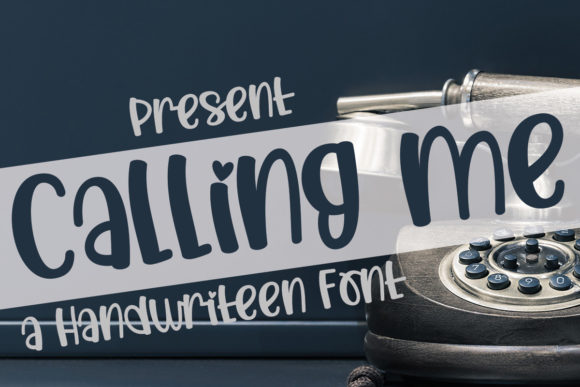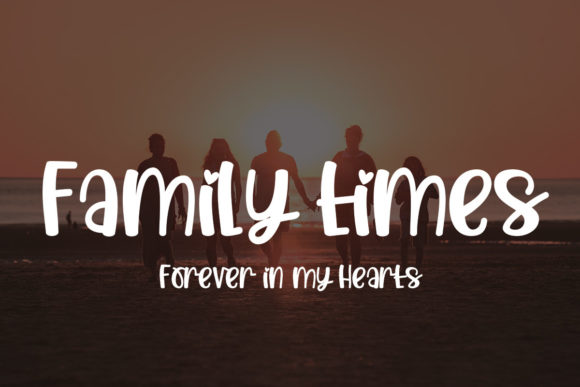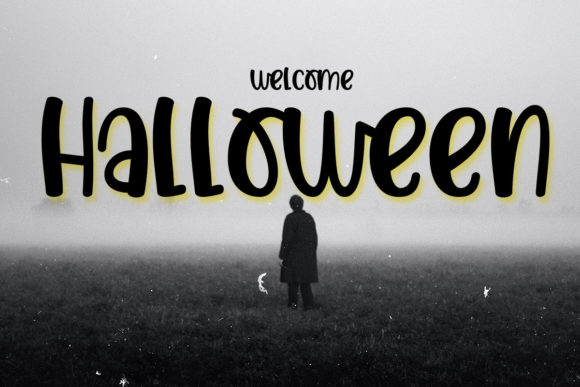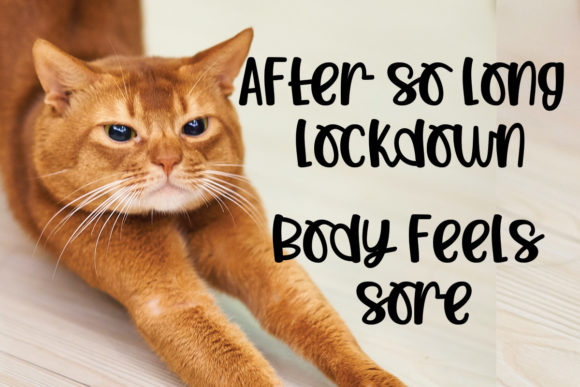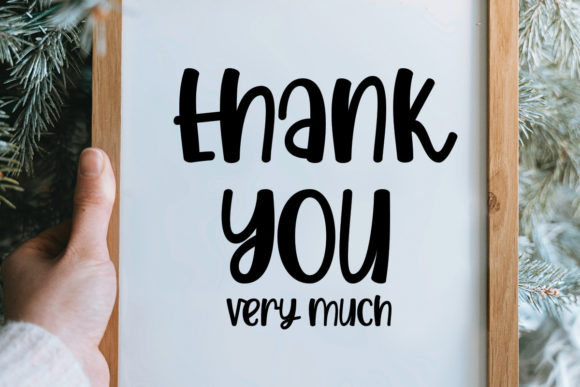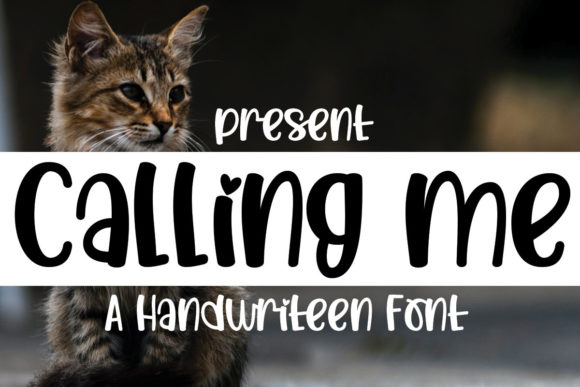
Discover the Charm of Calling Me Font: Elevate Your Designs with a Cool, Quirky, and Friendly Display Font
Are you on the hunt for a font that adds a dash of personality to your designs? Look no further than the Calling Me font, a cool, quirky, and friendly display font that’s sure to capture the attention of your audience. This delightful font is not only aesthetically pleasing but also highly functional, making it an excellent addition to your typography collection.
The Unique Appeal of Calling Me Font
Calling Me font stands out from the crowd with its unique blend of coolness, quirkiness, and friendliness. Its distinctive style is perfect for designers and crafters looking to infuse their projects with a bit of whimsy and charm. Whether you’re working on a branding project, crafting a social media graphic, or designing an invitation, Calling Me font is sure to bring a smile to your face and make your work shine.
One of the key features that sets Calling Me font apart is its PUA (Private Use Area) encoding. This means that you can easily access all of the font’s glyphs and swashes, allowing you to add intricate details and flourishes to your designs with just a few clicks. The PUA encoding ensures that you have complete creative control over your typography, making it simple to customize your text and make it truly unique.
With Calling Me font, the creative possibilities are endless. You can use it to:
- Create eye-catching headlines and titles that grab attention
- Add a touch of whimsy to your social media graphics and posts
- Design beautiful invitations and party decorations
- Develop a cohesive brand identity with a unique and recognizable typography style
- Craft compelling packaging designs that stand out on store shelves
Why Choose Calling Me Font?
So, what makes Calling Me font an excellent choice for designers and crafters? Here are just a few reasons:
- Unique Style: Calling Me font boasts a one-of-a-kind style that’s sure to set your designs apart from the crowd.
- Ease of Use: With PUA encoding, accessing glyphs and swashes is a breeze, making it easy to get creative with your typography.
- Versatility: This font is perfect for a wide range of projects, from digital designs to print materials.
- High-Quality: Calling Me font is crafted with attention to detail, ensuring that it looks great in any context.
Tips for Getting the Most Out of Calling Me Font
To truly make the most of Calling Me font, here are a few tips to keep in mind:
- Experiment with Different Sizes: Don’t be afraid to play around with different font sizes to find the perfect balance for your design.
- Mix and Match Glyphs: Take advantage of the PUA encoding to mix and match glyphs and swashes, creating a truly unique look.
- Pair it with Other Fonts: Calling Me font pairs well with a variety of other fonts, so don’t be afraid to experiment with different combinations.
In conclusion, Calling Me font is a cool, quirky, and friendly display font that’s sure to elevate your designs to new heights. With its unique style, PUA encoding, and endless creative possibilities, it’s an excellent addition to any designer’s or crafter’s toolkit. So why wait? Add Calling Me font to your collection today and let yourself be amazed by the outcome!